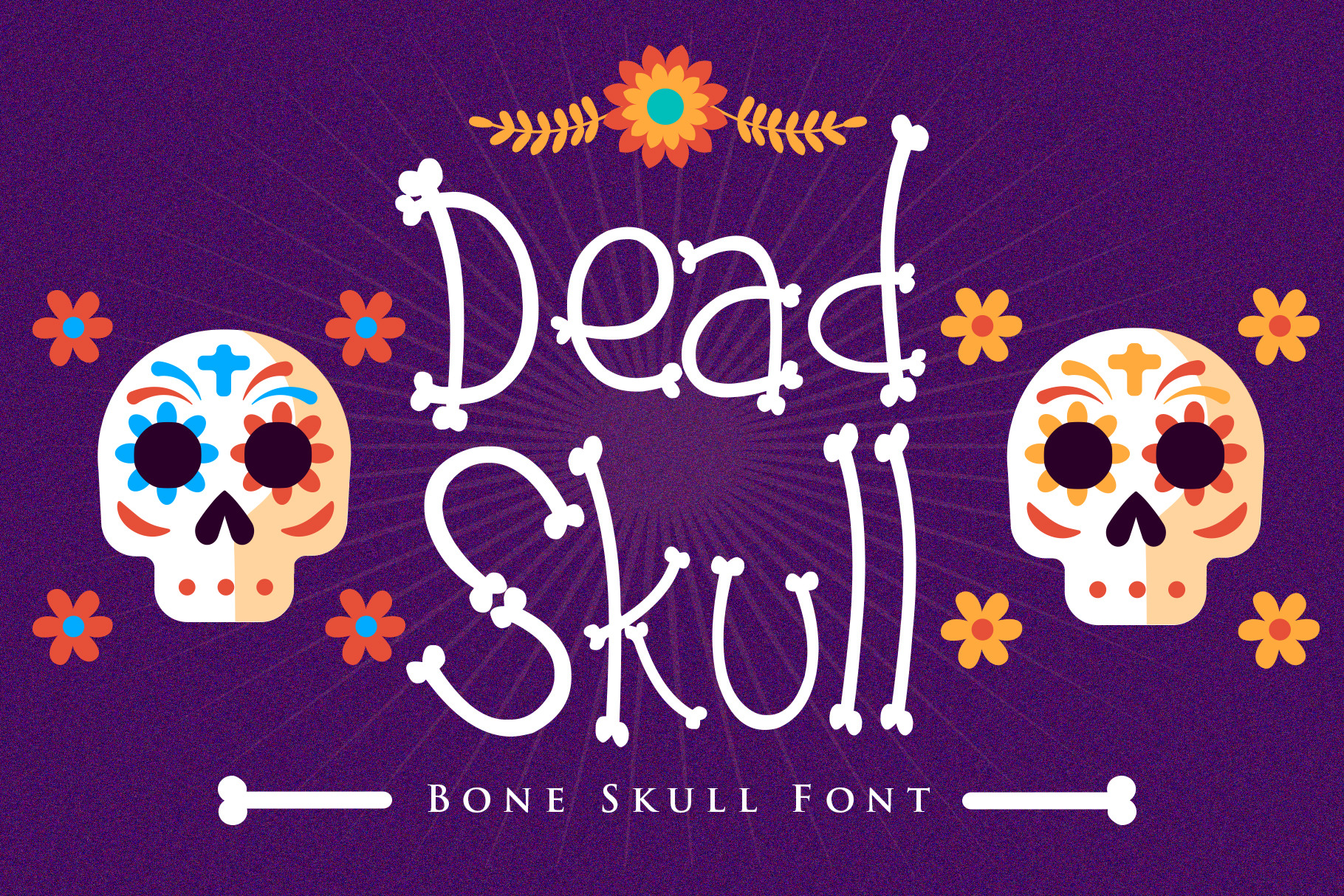
Dead Skull - Bone Skull Font
Dead Skull is a bone look a like font, made special for your Halloween Projects! Simply type and have fun with the glyphs to your design!